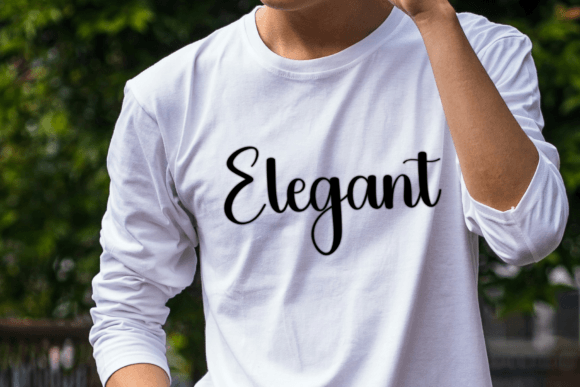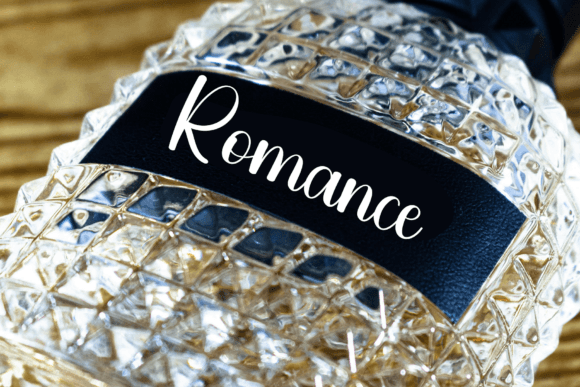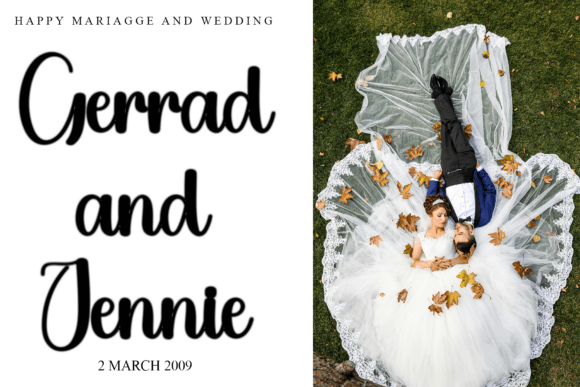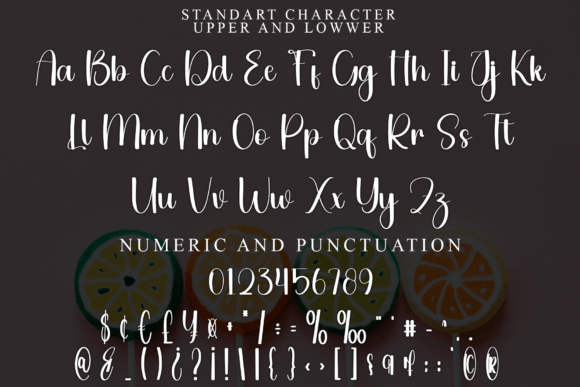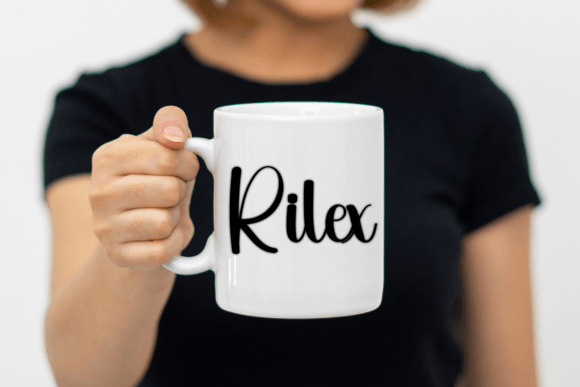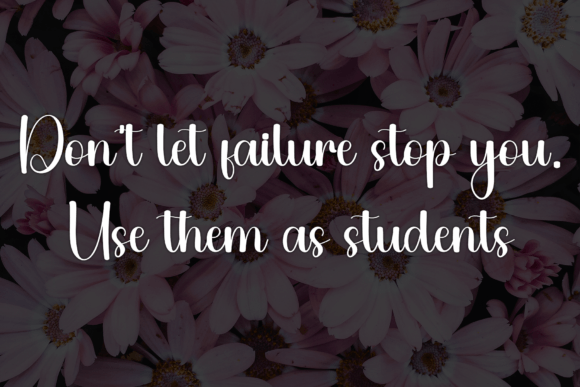
Introducing Blushing Font: The Perfect Blend of Warmth and Whimsy
Are you looking for a font that can add a personal touch to your designs? Look no further than Blushing Font, a casual handwritten font that exudes warmth and friendliness. Its rounded, playful strokes give a relaxed and approachable feel, making it perfect for personal projects, invitations, and social media graphics.
The Charm of Blushing Font
Blushing Font is a charming, hand-drawn font that is sure to capture the hearts of designers and crafters alike. Its unique, whimsical aesthetic adds a delightful touch to any design, making it stand out from more traditional fonts. The font’s casual, laid-back vibe makes it perfect for creating designs that are relaxed, approachable, and friendly.
Key Features of Blushing Font
- Rounded and Playful Strokes: Blushing Font features rounded, playful strokes that give it a relaxed and approachable feel.
- Hand-Drawn Aesthetic: The font’s charming, hand-drawn aesthetic adds a delightful, whimsical touch to any design.
- Perfect for Personal Projects: Blushing Font is ideal for personal projects, such as invitations, social media graphics, and personal blogs.
- Easy to Read: The font is easy to read, making it perfect for body text and captions.
Uses for Blushing Font
Blushing Font is a versatile font that can be used for a variety of design projects, including:
- Personal Invitations: Create beautiful, personalized invitations for weddings, birthdays, and other special occasions.
- Social Media Graphics: Use Blushing Font to create eye-catching social media graphics, such as quotes, promotions, and announcements.
- Personal Blogs: Add a personal touch to your blog with Blushing Font, perfect for bloggers who want to stand out from the crowd.
- Crafting and DIY Projects: Blushing Font is perfect for crafters and DIY enthusiasts who want to add a personal touch to their projects.
Why Choose Blushing Font?
So why choose Blushing Font over other fonts? Here are just a few reasons:
- Unique and Whimsical: Blushing Font is a unique and whimsical font that will add a touch of personality to your designs.
- High-Quality Design: Blushing Font is a high-quality font that is designed to look great in any design.
Tips for Using Blushing Font
Here are a few tips for using Blushing Font in your designs:
- Pair with Other Fonts: Pair Blushing Font with other fonts to create a unique and interesting design.
- Use for Headings and Titles: Use Blushing Font for headings and titles to add a touch of personality to your design.
Blushing Font is a charming, hand-drawn font that is perfect for designers and crafters who want to add a personal touch to their designs. Its rounded, playful strokes and whimsical aesthetic make it ideal for personal projects, invitations, and social media graphics. With its ease of use and high-quality design, Blushing Font is a great choice for anyone looking to add a touch of warmth and friendliness to their designs.